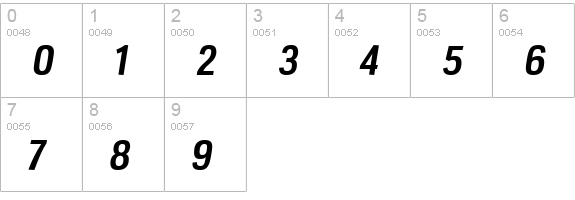
Veriox Sb Italic Font Details
Veriox Sb Italic is a distinctive, italic variant in the Veriox typeface family \xE2\x80\x94 well suited to design and typography projects.
Veriox Sb Italic is a beautifully crafted font that exudes elegance and sophistication. Its sleek and stylish design is perfect for adding a touch of modernity to any project. The italicized style adds a sense of movement and flair to the text, making it ideal for creating eye-catching headlines or stylish typography. With its clean lines and distinct letterforms, Veriox Sb Italic is sure to make a statement in any design. Best of all, this stunning font is available for free download at FontsMarket.com. Whether you're working on a professional project or a personal endeavor, Veriox Sb Italic is a versatile font that will elevate your designs to the next level. Don't miss out on the opportunity to enhance your creativity with this exquisite typeface. Download Veriox Sb Italic today and unleash your design potential.